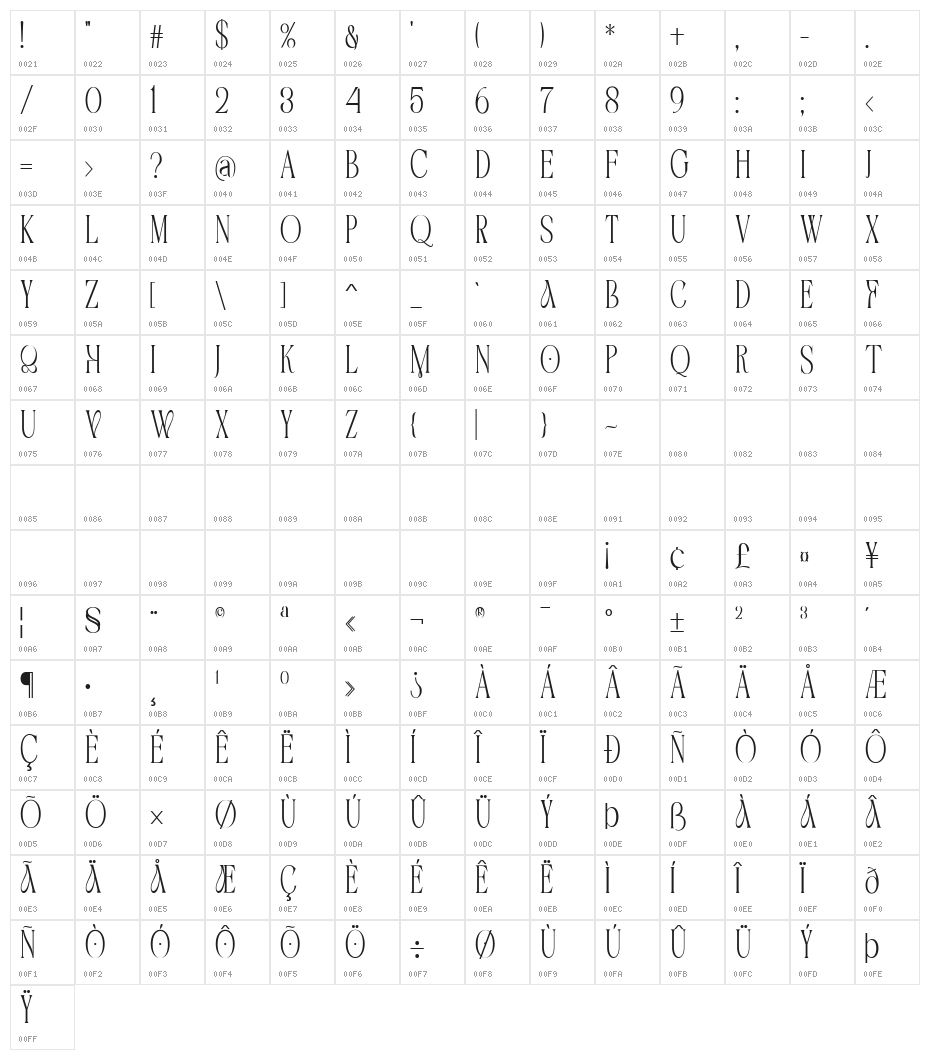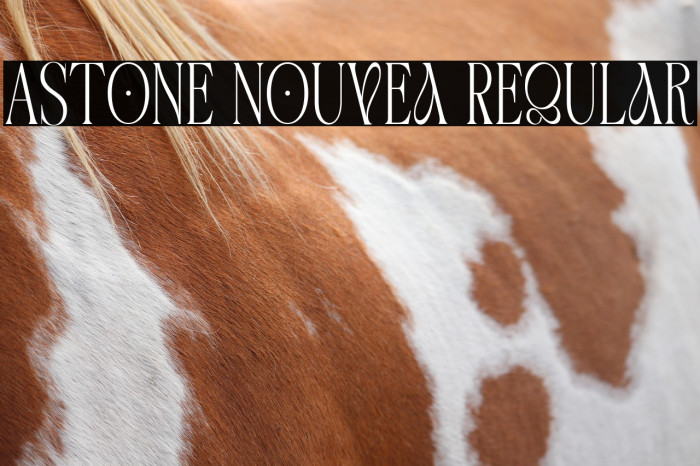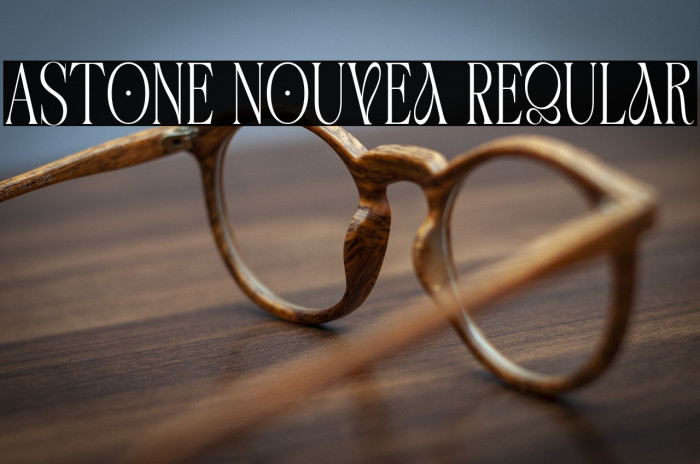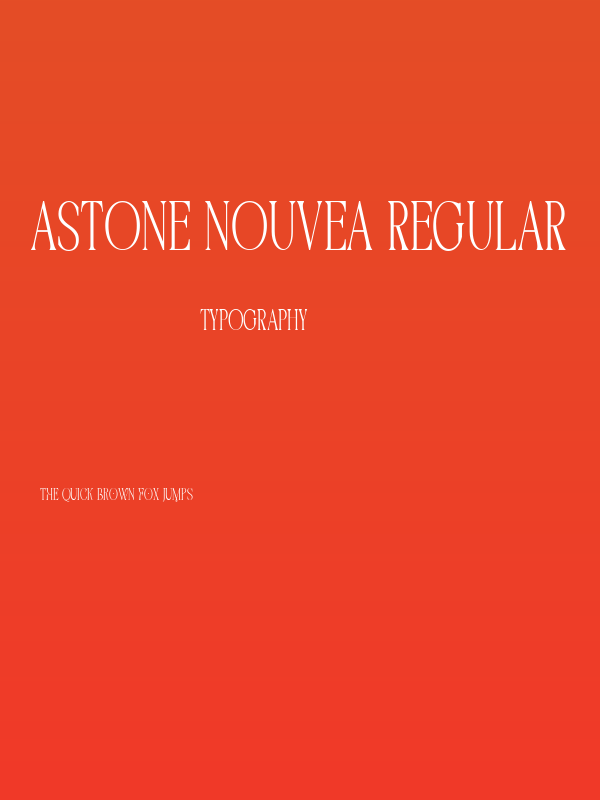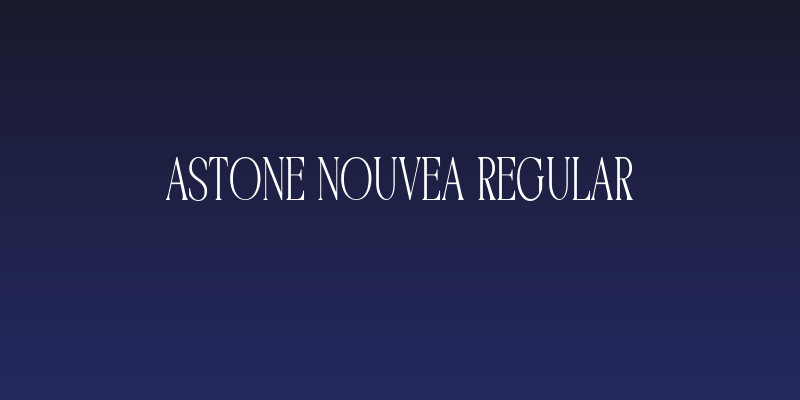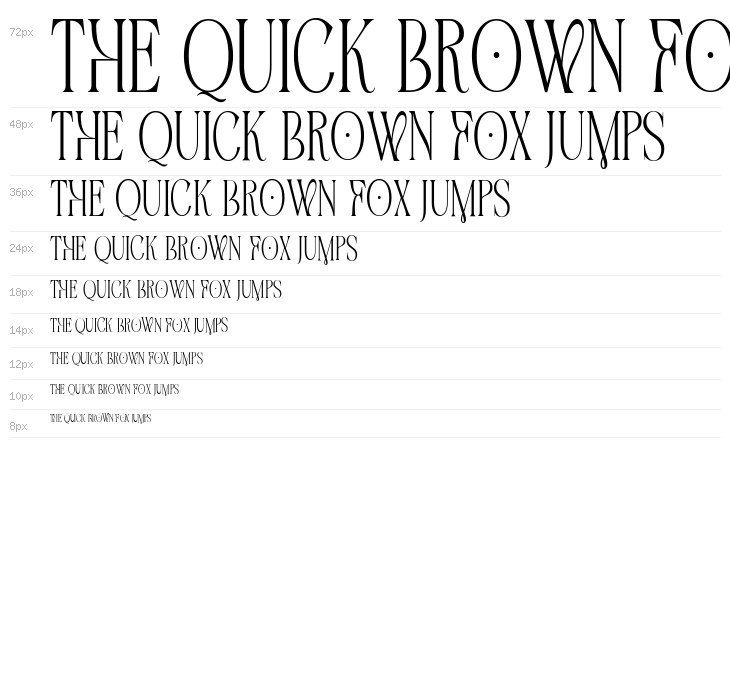
Astone Nouvea Regular Font
Astone Nouvea Regular Description
This font features an elegant and sophisticated design with a modern twist. The characters are tall and slender, with a high contrast between thick and thin strokes, giving it a refined and stylish appearance. The uppercase letters have a distinctive flair, with some characters incorporating unique curves and loops, adding a touch of creativity and uniqueness. The lowercase letters maintain a consistent style, complementing the uppercase with their graceful forms. The numerals are clear and legible, matching the overall aesthetic of the font. Special characters are thoughtfully designed, maintaining the font's elegance and readability.
| Overall Style | Modern, Elegant |
| Proposed Projects | Ideal for luxury branding, fashion magazines, wedding invitations, and high-end product packaging. |